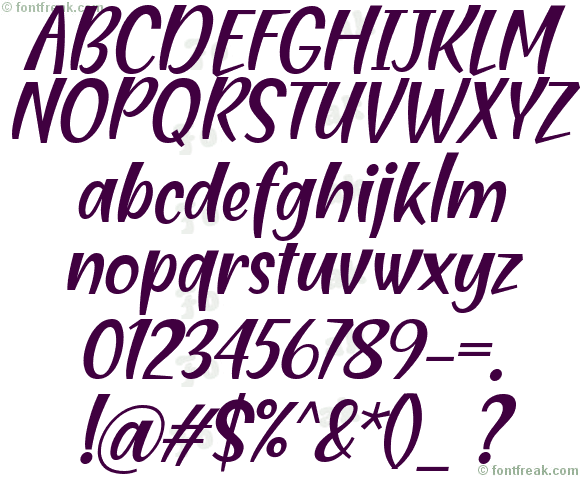
Blending Attraction
Blending Attraction Italic
About Blending Attraction
Blending Attraction by Situjuh Nazara is a unique display font that effortlessly combines a contemporary aesthetic with playful elegance. This font features a striking italic style, characterized by its dynamic strokes and a whimsical flair that captures attention. The stroke weight varies gracefully, creating a beautiful contrast that enhances legibility while adding a touch of personality. The spacing is well-balanced, allowing for easy reading, while decorative elements subtly enhance the overall visual appeal without overwhelming the design.
This font is perfect for a variety of creative applications. Its charming style makes it an excellent choice for wedding invitations, where a sense of romance is desired. Additionally, it works wonderfully for movie posters, providing a modern twist that can draw in viewers. Restaurant menus can also benefit from the inviting and friendly appearance of Blending Attraction, making it an attractive option for food establishments aiming to create a warm atmosphere. Furthermore, it can enhance branding materials for small businesses, giving them a unique identity that stands out in marketing collateral.
Targeting graphic designers, small business owners, and content creators, this font is versatile enough to adapt to various projects. Its unique style invites creativity and encourages innovative design approaches, making it an essential addition to any designer's toolkit.
What sets the Blending Attraction font apart is its ability to blend contemporary design with a charming, approachable feel. This quality makes it suitable for both formal and informal contexts, appealing to a wide audience. With its free availability, users can easily access the Blending Attraction font free download to elevate their projects and infuse them with a distinctive flair.